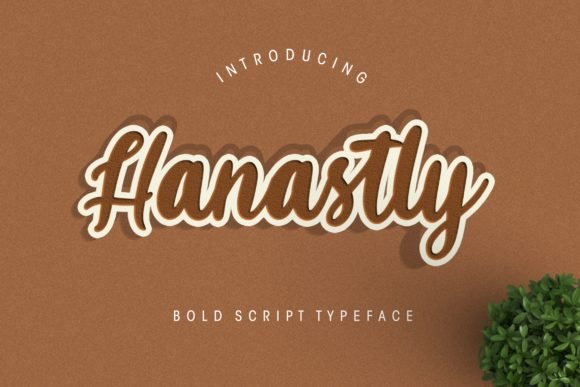
The Perfect Font for Your Masterpiece
Have you ever been stuck on a project, staring at a blank page, and suddenly a spark of inspiration hits you? That’s exactly what happened to me when I discovered the Hanastly Font. It’s as if the universe was whispering, “This is the one.” A classy, bold, and modern script that’s begging to be used.
Hanastly Font is an extremely versatile script, making it the ideal crafting font for designers. Its purpose is to elevate your designs, giving them a touch of sophistication and elegance. Whether you’re working on a wedding invitation, a logo, or a social media post, Hanastly Font is sure to make your creations stand out.
What makes Hanastly Font so valuable for designers is its ability to add a personal touch to any project. Its modern and bold feel is perfect for creating eye-catching designs that grab attention and leave a lasting impression.
- Font Style: Script, Calligraphy
- Unique Characteristics: Hand-drawn, cursive script with intricate details and flourishes
Review: Hanastly Font
At first glance, Hanastly Font is quite the interesting choice. The playful, whimsical feel it brings to text can add a touch of personality to any design project. ✨ I particularly appreciate the way the font’s rounded edges and friendly curves make it feel approachable and easy to read.
Here are a few things that work well in Hanastly Font:
- ✨ Excellent legibility: Hanastly Font is highly readable, even at smaller font sizes.
- ✨ Unique character: The font’s distinct feel makes it stand out from more common sans-serif fonts.
- ✨ Versatile: Hanastly Font works well for both body text and headings.
- ⚠️ Limited font sizes: While Hanastly Font looks great at standard font sizes, it can become blurry and distorted when enlarged.
- ⚠️ Limited support for certain languages: Some languages may not have the necessary characters to display properly in Hanastly Font.
Overall, I think Hanastly Font is a great choice for projects where a playful, approachable feel is desired. However, it may not be the best option for projects that require extreme flexibility or a wide range of font sizes.
Use Hanastly font for headings and titles to create a unique and eye-catching design.
Pair Hanastly font with other fonts to create a visually appealing contrast.
Experiment with different font sizes and colors to create a cohesive design.